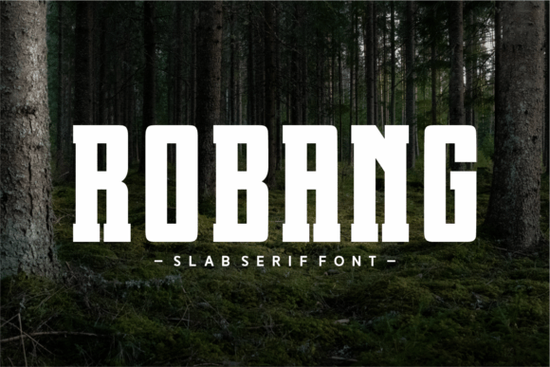
If you've been searching for a bold, athletic typeface that works across branding, apparel, and print projects, the Robang Font collection is worth a close look. At its core is Varsity, a condensed slab serif with a sporty, collegiate feel that brings both strength and personality to any layout. It's the kind of typeface that immediately catches your eye on a team poster, a t-shirt design, or a logo that needs to feel confident without being overcomplicated.
What Does Robang's Varsity Font Look Like?
Varsity is a slab serif display font with a condensed, all-caps structure. Think blocky letterforms with sturdy serifs, geometric proportions, and a tall, commanding presence. It draws from the classic athletic lettering you'd see on varsity jackets and gym banners, but with a polished, modern edge.
Key design traits include:
- All-caps configuration every letter sits at the same height, which creates uniform, punchy headlines
- Slab serif details thick, block-like serifs add weight and readability at large sizes
- Condensed width letters are narrower than standard, so you can fit more text in tight layouts
- Geometric structure clean angles and consistent stroke widths give it a balanced, intentional feel
- Subtle retro-vintage character a nod to mid-century sports typography without feeling dated
The overall effect is bold and energetic. It doesn't whisper it announces. If you're interested in more typefaces with this style, browsing through other slab serif fonts on Creative Fabrica can give you plenty of options to compare.
Who Is This Font Best Suited For?
This typeface works well for anyone who needs a strong display font that reads clearly at large sizes. Here's who tends to get the most use out of it:
- Print-on-demand sellers Varsity looks great on t-shirts, hoodies, and sportswear. Its condensed shape means longer phrases still fit across a standard chest print area.
- Small business owners if your brand leans active, youthful, or outdoorsy, this font can anchor your logo and marketing materials without needing much else.
- Graphic designers poster layouts, event flyers, and signage benefit from its high-impact presence. It fills space well and stays legible from a distance.
- Crafters and hobbyists for stickers, labels, custom party decorations, or school projects, the chunky letterforms are easy to cut, layer, and read.
- Content creators YouTube thumbnails, social media graphics, and channel banners often need a typeface that pops at a glance.
What Types of Projects Work Well With Varsity?
Because Varsity is a display font, it's designed for headlines, titles, and short text blocks not long paragraphs. Here are some practical ways to put it to work:
- Team and school branding mascots, team names, jersey numbers, spirit wear, and pep rally posters all benefit from its collegiate vibe.
- Apparel design vintage-style gym shirts, workout gear, and casual streetwear logos pair naturally with this typeface.
- Packaging and labels the bold weight makes it a solid choice for product packaging where you need the brand name to be the focal point.
- Magazine layouts feature article headlines, section headers, and pull quotes get a strong visual anchor.
- Digital marketing banner ads, email headers, and landing page hero sections benefit from its commanding presence.
- Signage directional signs, sale banners, and event announcements read clearly even from across a room.
How Does It Compare to Other Athletic Fonts?
There's no shortage of varsity-style and athletic typefaces out there. What sets this one apart is the balance between raw energy and geometric precision. Some sport fonts feel rough or overly distressed. Others lean so clean they lose their personality. Varsity sits in the middle it's bold and expressive but still feels refined enough for professional branding work.
The condensed proportions also make it more practical than wider athletic fonts. You can stack words, fit text into banners, and create tight compositions without the layout feeling cramped. That versatility matters when you're working across different formats and sizes.
For a broader perspective on how slab serifs are used in modern design, this Robang Font reference on slab serif history gives useful context about the typeface family's roots and evolution.
Things to Keep in Mind Before You Buy
A few honest notes to help you decide if this font fits your needs:
- It's all-caps only. There are no lowercase letters. This is intentional and typical of athletic display fonts, but it means you won't use it for body copy or mixed-case designs.
- It's a display font. Don't expect it to work for long-form text, fine print, or small-size applications. Use it where it shines big, bold, and front-and-center.